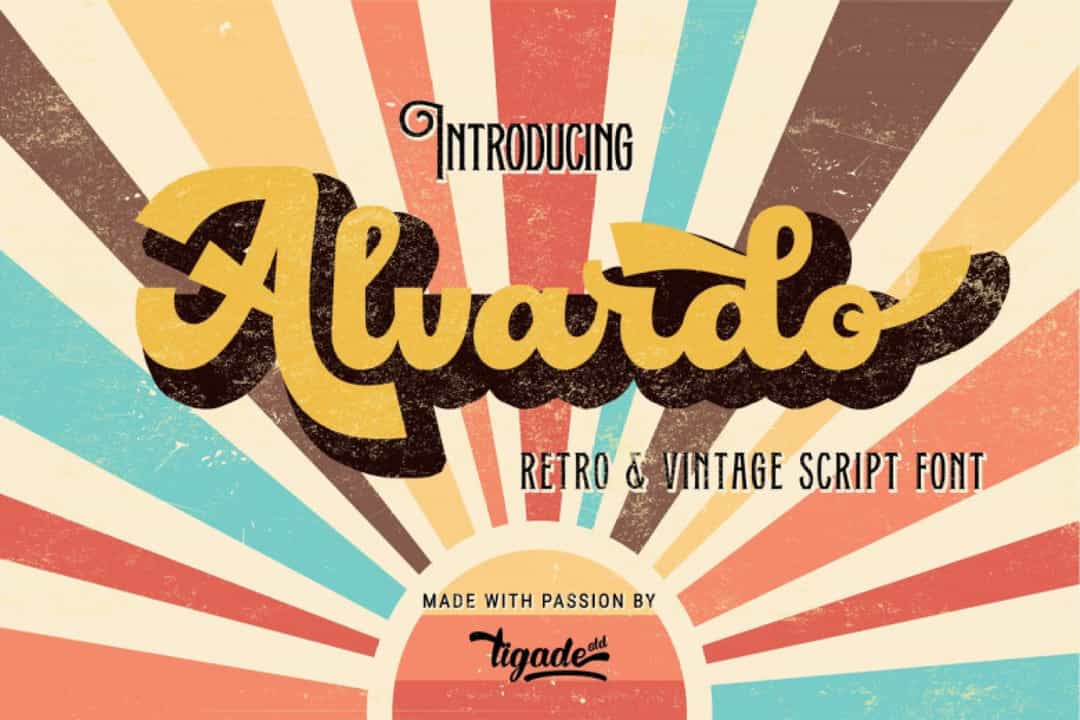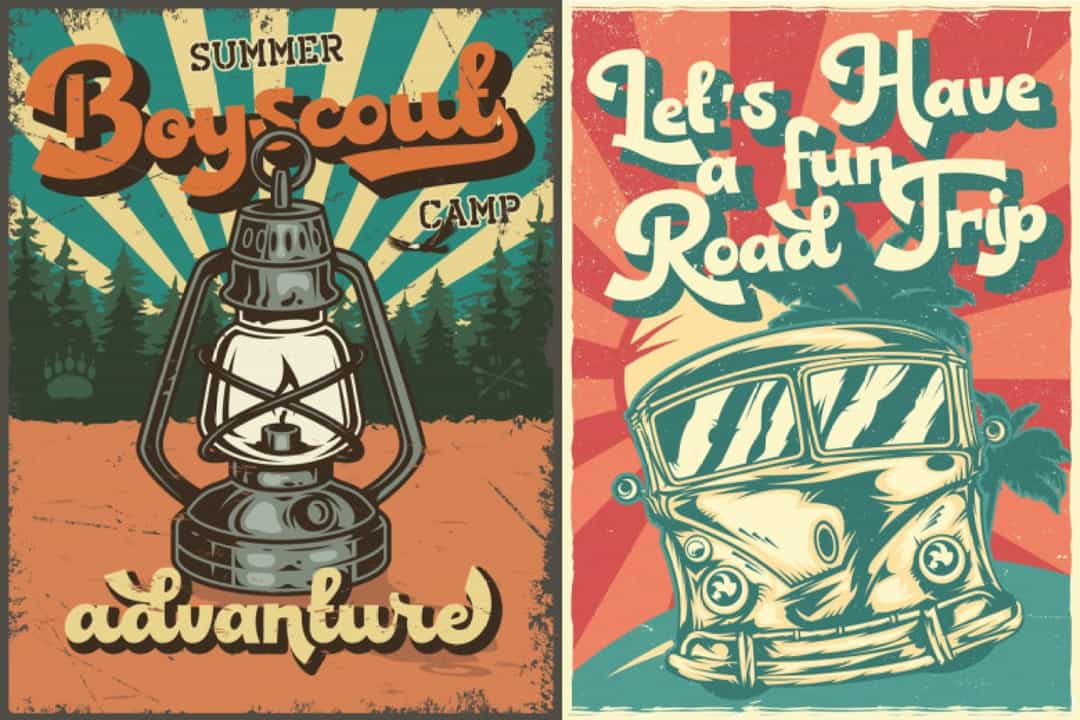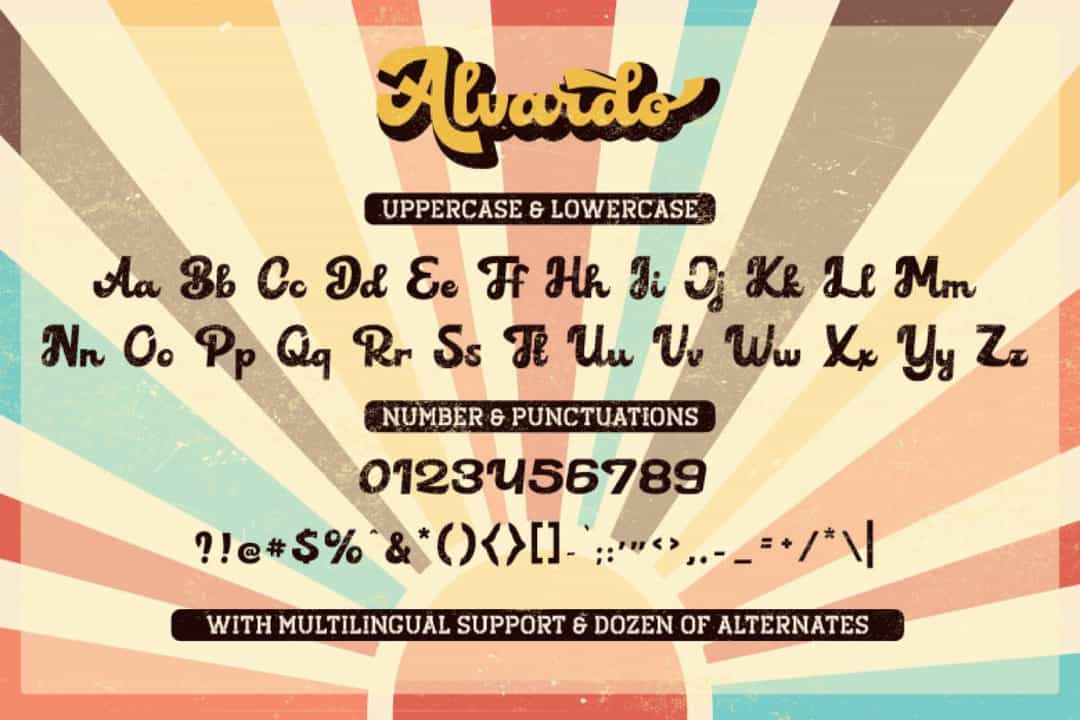
Alvardo is an elegant retro script font encoded with PUA for easy access to its stylistic elements and glyphs! Perfect for headlines, product magazine covers, logos, posters and branding applications alike – Alvardo can bring vintage charm back into your designs!